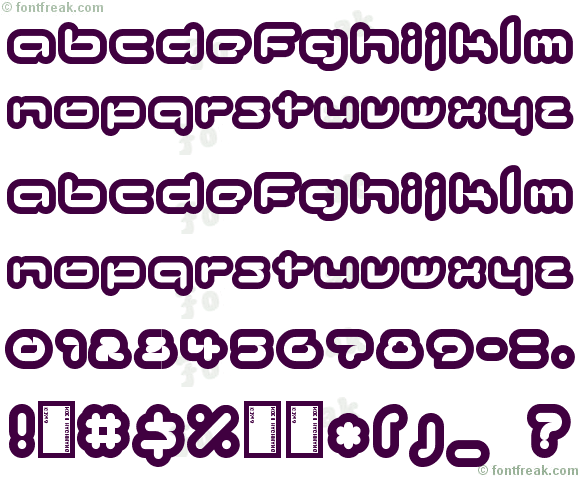
Kinkimono
About Kinkimono
Kinkimono is a distinctive display font designed by Glitch Freeware Fonts, offering a unique and playful aesthetic that is sure to capture attention. This font features a bold, rounded style that falls into the decorative category, making it ideal for projects that require a creative touch. With its thick stroke weight and minimal contrast, Kinkimono exudes a sense of modernity combined with a whimsical charm. The letters are spaced evenly, allowing for easy readability while still maintaining an eye-catching appeal.
Kinkimono is particularly well-suited for a variety of applications. It shines in settings like movie posters, where its playful character can draw viewers in. Additionally, the font is perfect for children's book covers, adding a fun and engaging element to the text. Restaurant menus can benefit from Kinkimono's unique flair, enticing diners with its distinctive presentation. It can also be used effectively in branding for creative businesses, where a quirky and memorable typeface can help establish a strong identity. Graphic designers, small business owners, and content creators will find this font a valuable asset for enhancing their projects.
What sets Kinkimono apart is its ability to blend fun with functionality. The rounded shapes and bold lines create a cheerful yet professional look that can adapt to various themes and styles. Whether you're designing a vibrant advertisement or a quirky social media post, Kinkimono brings a fresh perspective that can elevate your work. Don't miss out on the opportunity to incorporate this unique typeface into your designs—consider the Kinkimono font free download for your next creative venture. This font is not just a type choice; it’s a statement that invites curiosity and engagement.